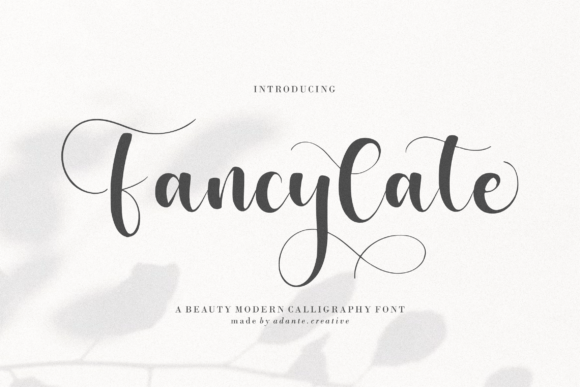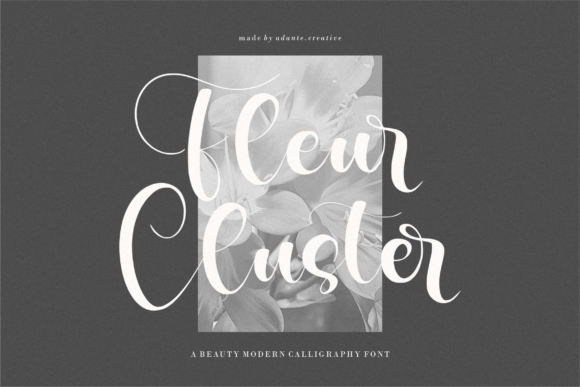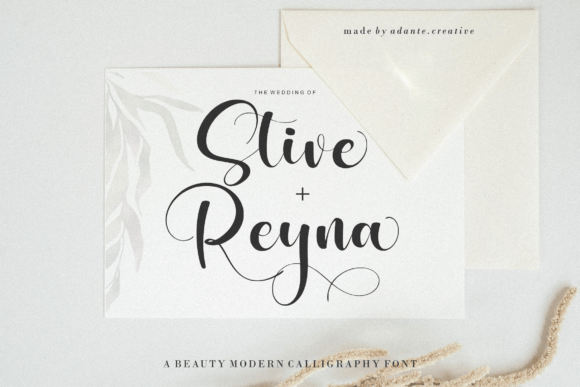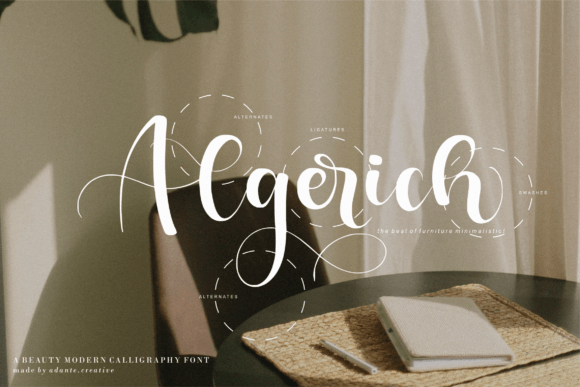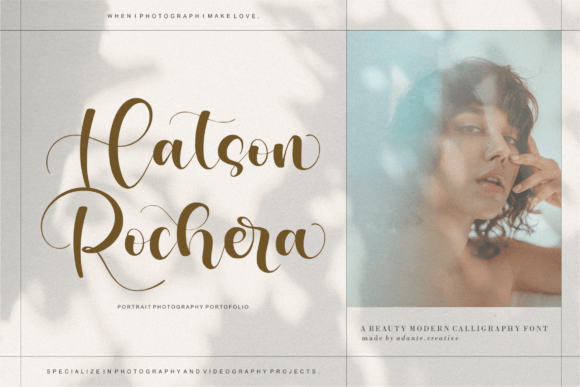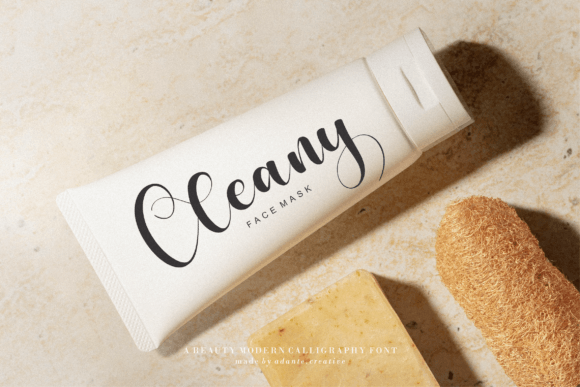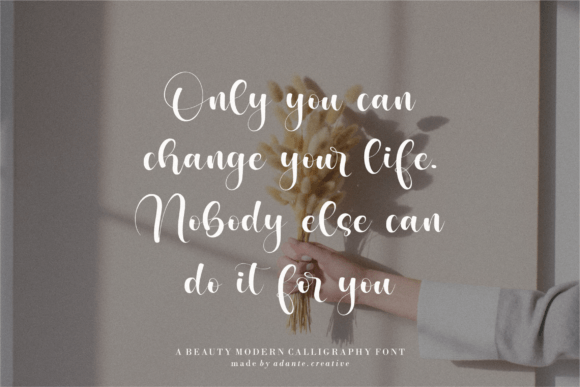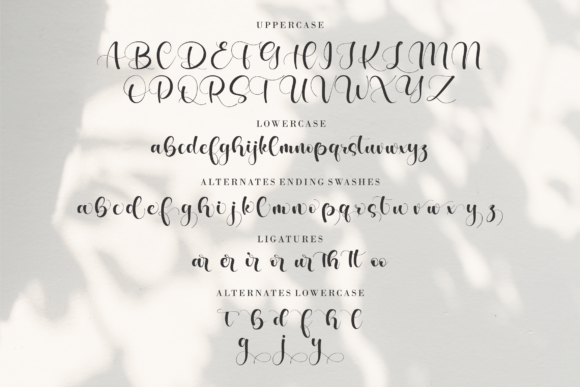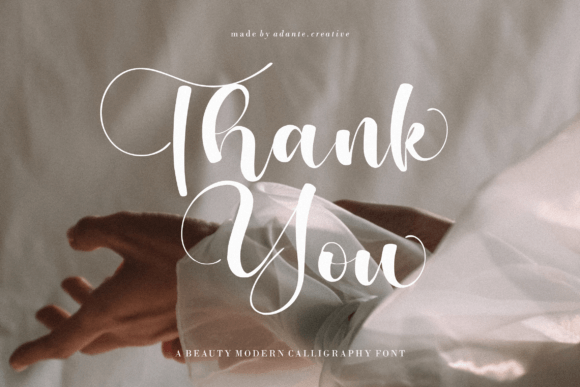
Fancylate Font
**Fancylate: A Stylish and Elegant Handwritten Script Font**
**Fancylate** is a stylish and elegant handwritten script font that brings a touch of sophistication to your design projects. With its delicate characters and graceful appearance, this font is guaranteed to add a unique romantic touch to your creations.
This font’s stylish and elegant design makes it suitable for a wide range of applications. Whether you’re working on branding, invitations, wedding stationery, or any other creative project, **Fancylate** infuses your work with a sense of refinement and charm.
In branding and logos, this font helps your visual identity stand out with its elegant and unique character.
For invitations and wedding stationery, **Fancylate** adds a romantic and delicate touch, setting the perfect tone for special occasions.
In conclusion, **Fancylate** is a font that brings style and elegance to your design projects. Its delicate characters and romantic vibe make it a versatile choice for various applications. Embrace the sophistication of **Fancylate** and let your creativity flourish with a touch of elegance and refinement.